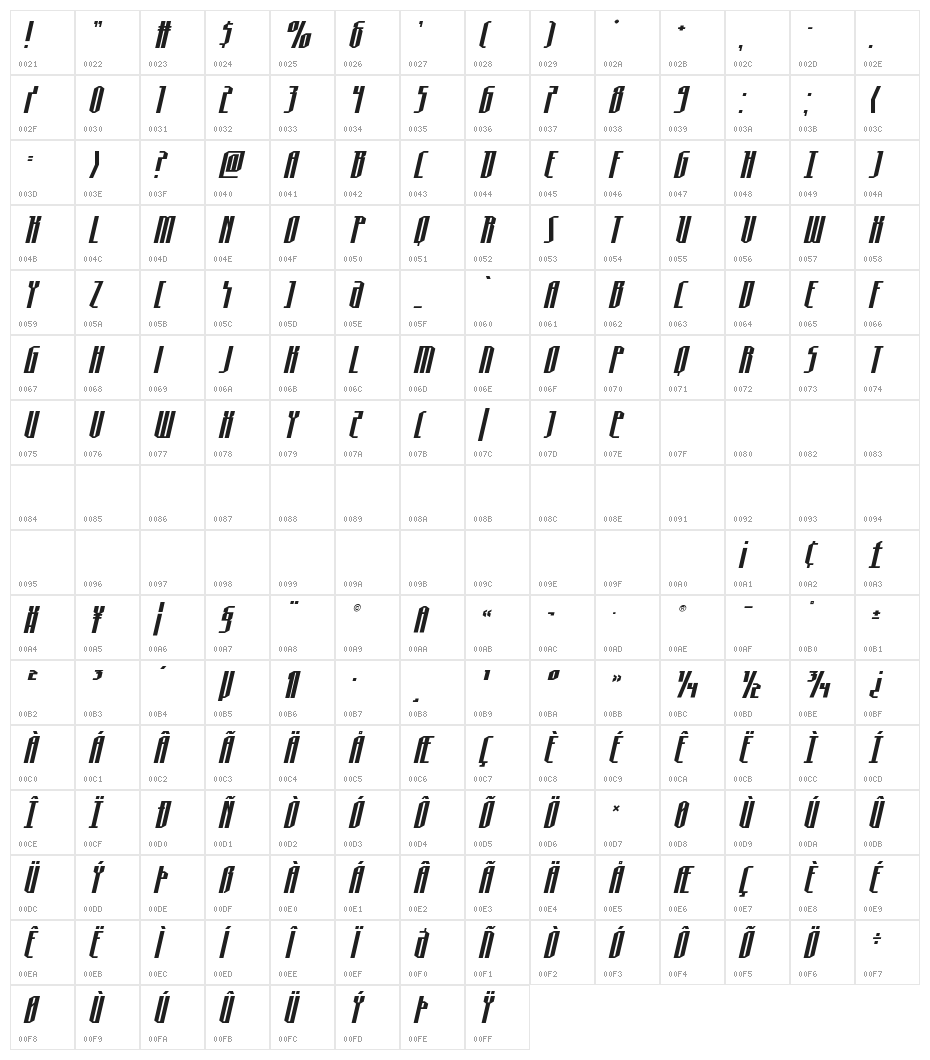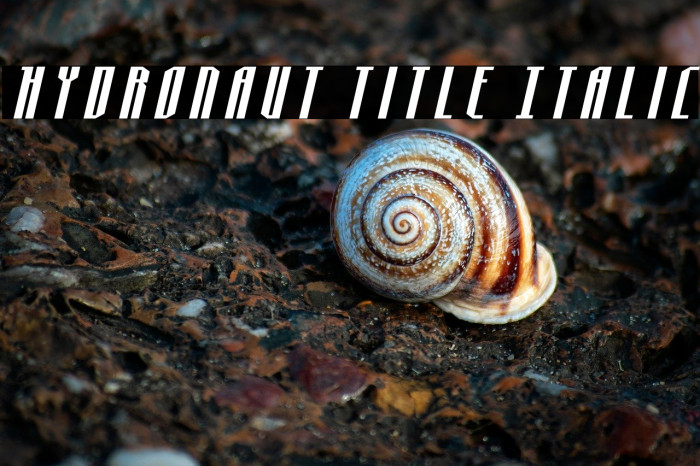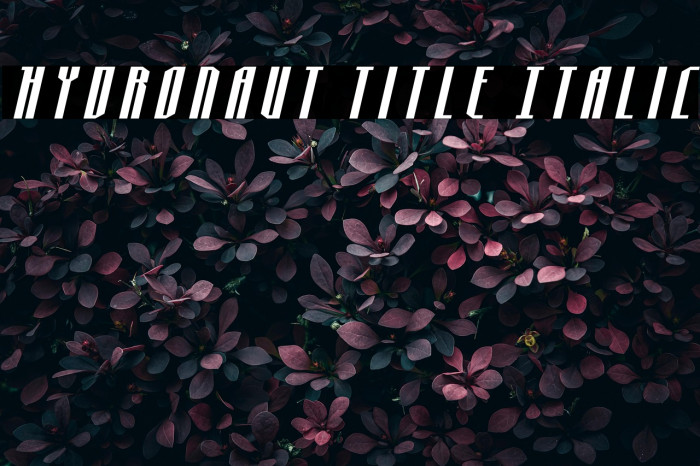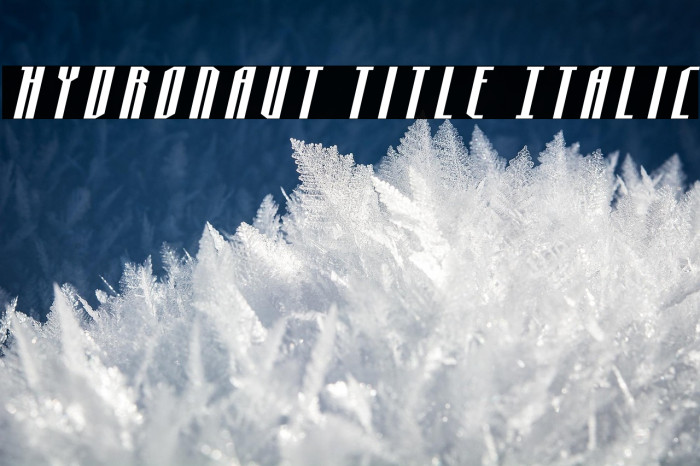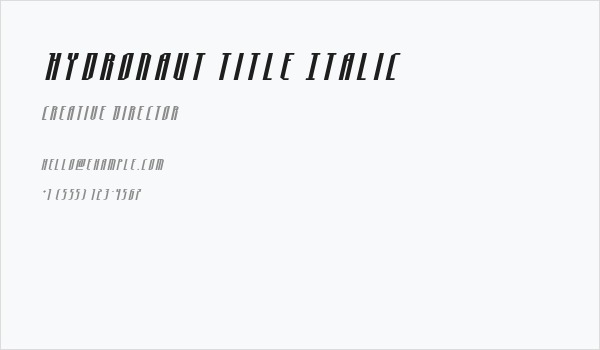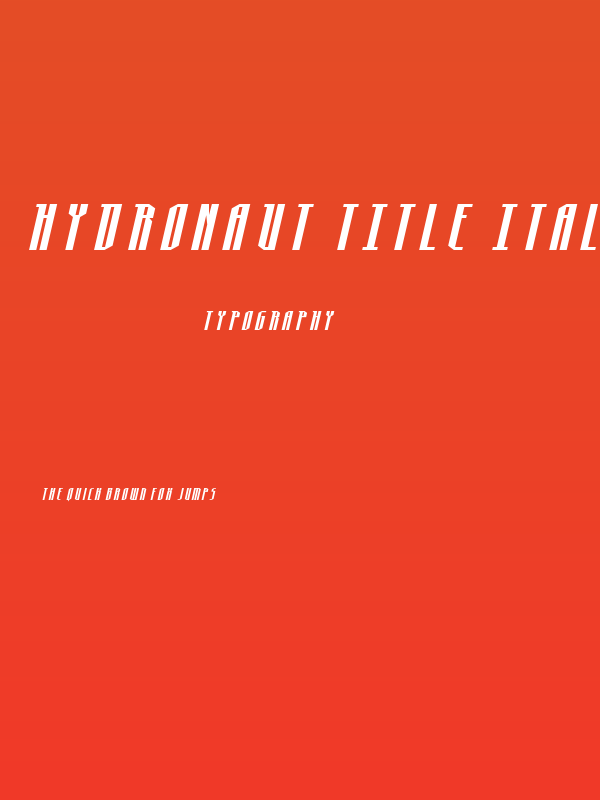
Hydronaut Title Italic Font
Hydronaut Title Italic Description
This font features a bold, italicized style with sharp, angular edges and a futuristic aesthetic. The characters are elongated and slightly condensed, giving a sleek and modern appearance. The uppercase and lowercase letters maintain a consistent slant, enhancing the dynamic look. The numbers and special characters follow the same stylistic approach, ensuring uniformity across all glyphs. The design is highly stylized, making it suitable for projects that require a strong visual impact.
HYDRONAUT-TITLE-ITALIC UPPERCASE
HYDRONAUT-TITLE-ITALIC LOWERCASE
HYDRONAUT-TITLE-ITALIC OTHER CHARS
| Proposed Projects | Ideal for sci-fi themed posters, video game titles, and branding that requires a modern, edgy look. |